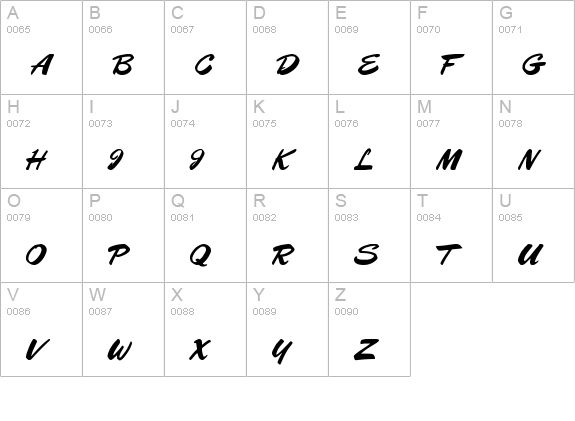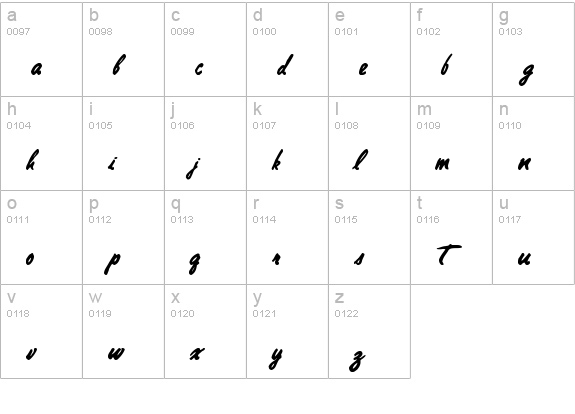
Holiday Best Medium is a balanced, medium-weight variant in the Holiday typeface family \xE2\x80\x94 well suited to sub-headlines, navigation, and balanced editorial work.
Introducing Holiday Best Medium font, a delightful and versatile typeface perfect for adding a touch of elegance to your holiday designs. This font features a classic yet modern style that is sure to make your projects stand out. With its clean lines and balanced proportions, Holiday Best Medium is ideal for creating invitations, greeting cards, posters, and more. And the best part? Holiday Best Medium font is completely free to download at FontsMarket.com! Simply visit the website to access this beautiful font and enhance your holiday creations with ease. Don't miss out on this amazing opportunity to elevate your designs with the Holiday Best Medium font. Download it today and let your creativity shine!